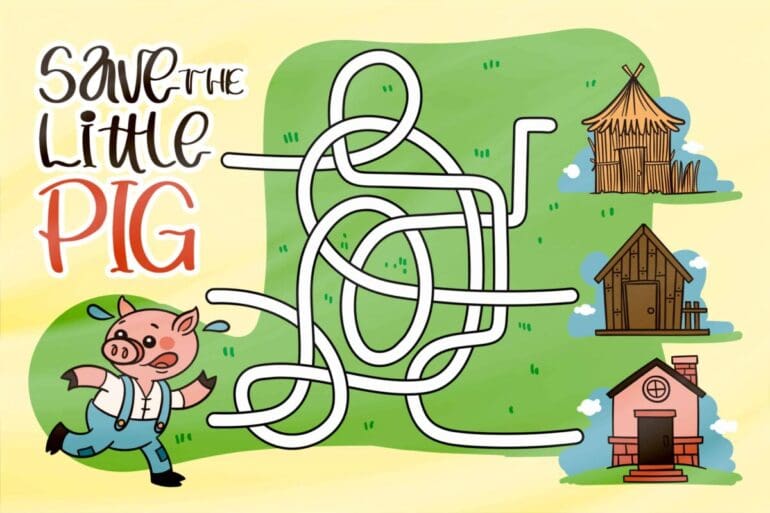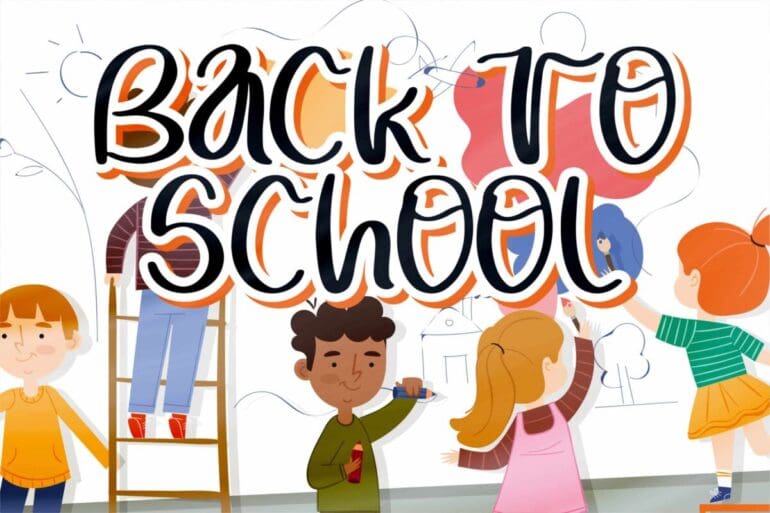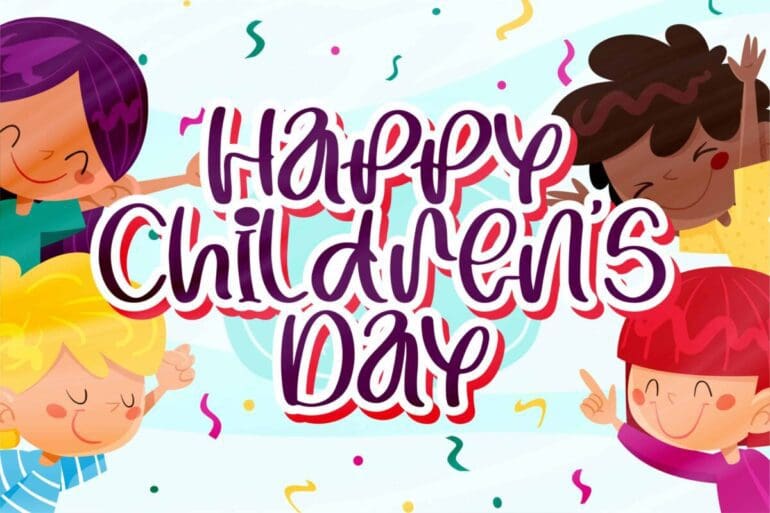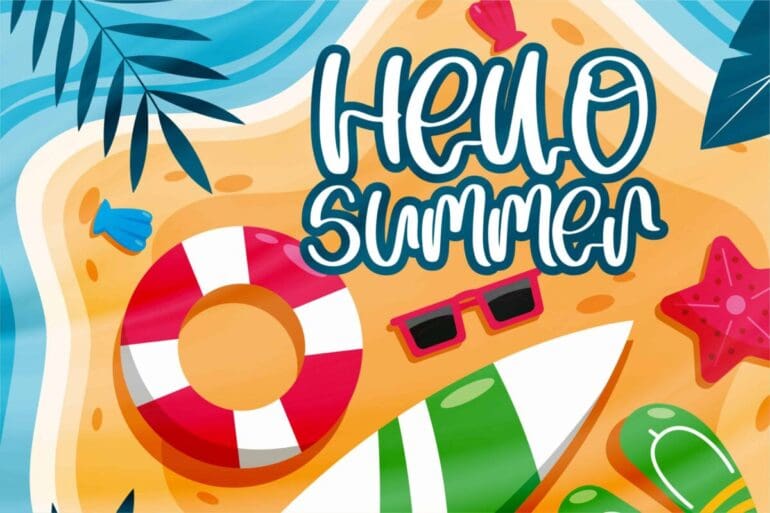
Summer Lovely Font
Summer Lovely is a quirky and whimsical Handwritten Font. Whether you are using it for cartoon-related designs, children’s games, quotes, titles, brand names, book covers, posters, or just any creation that requires a touch of beauty, this font is a great choice.